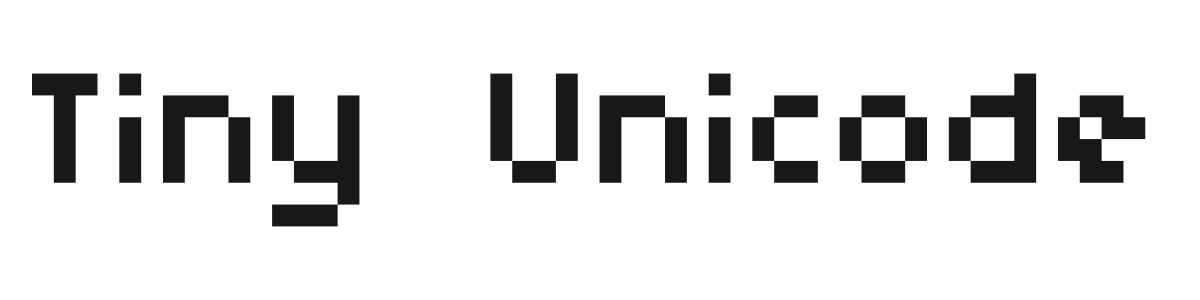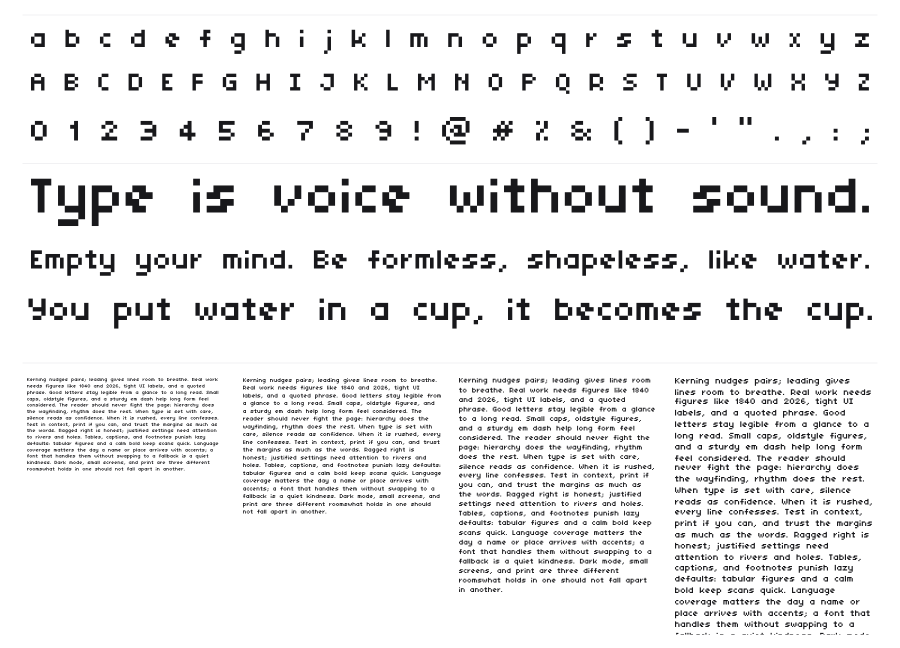
Tiny Unicode
by DuffsDevice
Tiny Unicode is a bold bitmap font from DuffsDevice built on a coarse pixel grid, capturing the chunky character of early home computer and arcade displays. Every character is assembled from square pixel blocks with no stroke contrast, giving it a dense, uniform weight that reads instantly at small sizes on screen. It belongs in games, retro tech interfaces, and anywhere that needs unmistakable 8-bit energy.